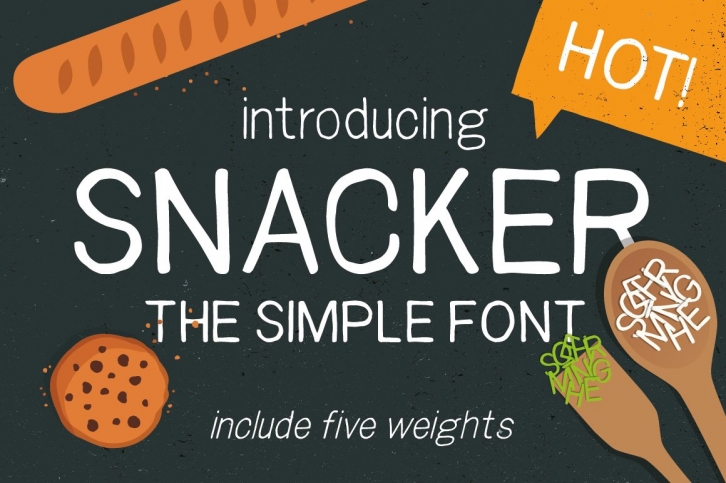
We was aiming to create useful sans-serif font with a personal touch.
So, there it is - "Snacker". Universal handlettered font with shaky finish. It's calm and nice font ready for vast range of application - from readable headlines to badges, or product designs.
Snacker include upper and lowercase letters, all usual english characters and comes in five weights. That gives you tons of options how to use it. You may find yourself using it again and again.
Include all basic english characters but no alternates or foreign alphabets at this time.